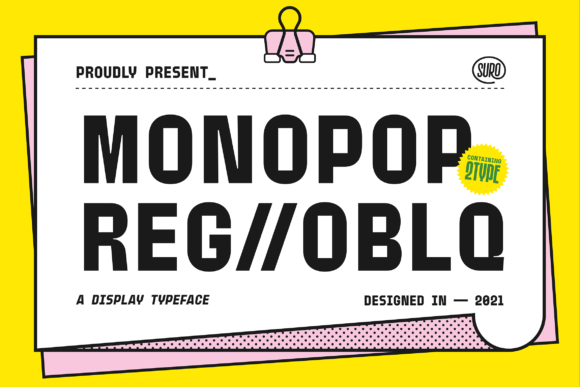
Say hello to Monopop, a display font that's out of this world! This captivating font is a perfect match for science posters, with its bold, quirky style, it will make your designs stand out like a supernova. Each character is meticulously crafted like a tiny masterpiece, making your words pop off the page with personality.
Imagine your science poster adorned with Monopop, the text dancing before your eyes like a cosmic ballet. Every stroke and curve of this font embodies the spirit of exploration and discovery, inviting your audience to dive into the depths of your scientific wonders. With Monopop, your posters will transform into portals to knowledge, captivating minds and igniting a thirst for the cosmos.
But Monopop isn't just confined to science posters, oh no! Its versatility is as boundless as the universe itself. Unleash your creativity and let Monopop elevate your letterheads, titles, and stationery to astronomical heights. Its playful and cool nature will add a touch of whimsy to any project, making your designs shine brighter than a billion stars.
So why settle for ordinary fonts when you can have Monopop, the font that's as unique as your scientific discoveries? Embrace the power of Monopop and let your designs reach for the stars, one captivating creation at a time!